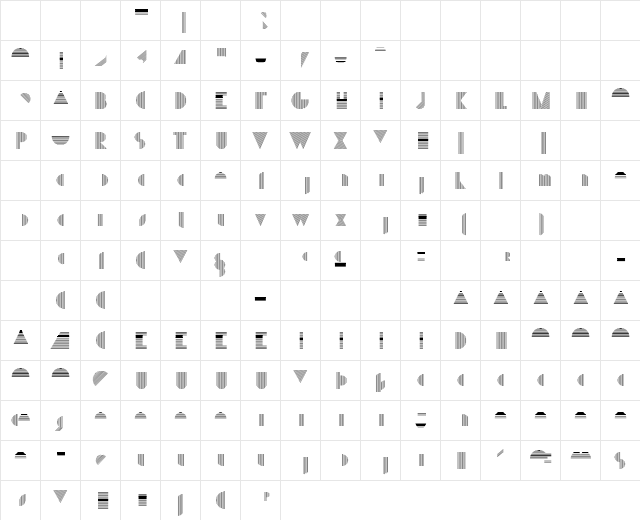
Complete P22 Bifur E Regular glyph index. Displaying only characters natively supported by P22 Bifur E Regular font.
P22 Bifur E is a composed and adaptable typeface that performs quietly and consistently across a wide range of design contexts.